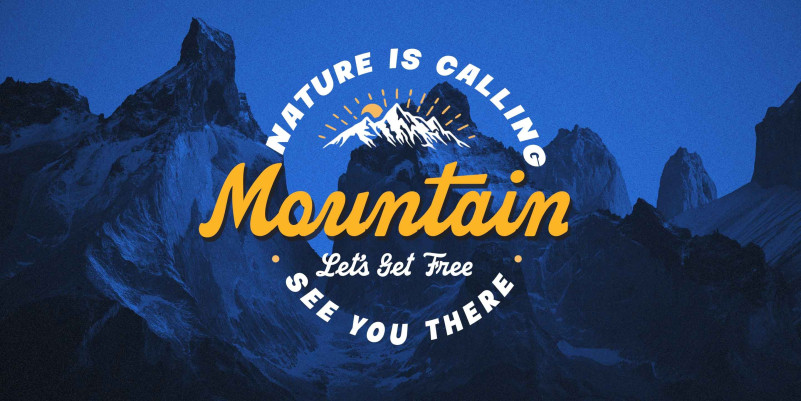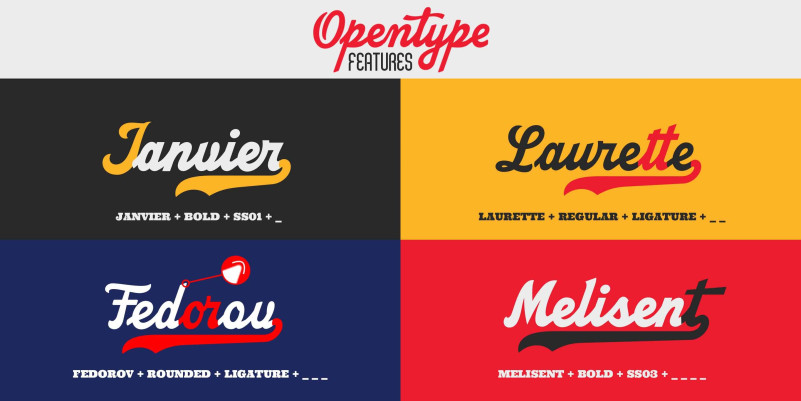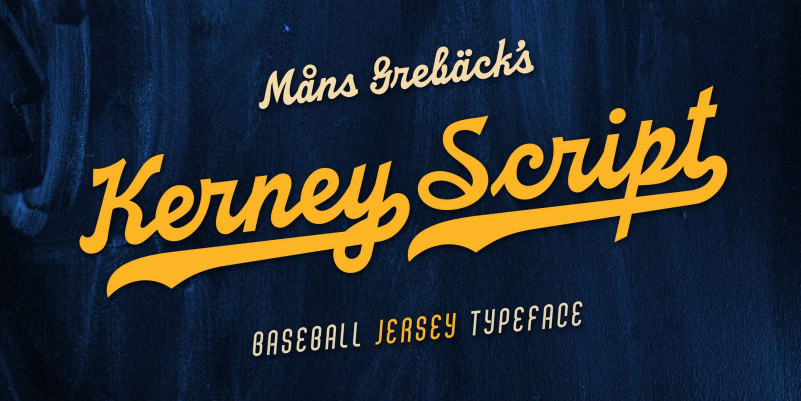
Kerney Script Font
Kerney Script Font, a sporty calligraphy, this retro lettering will be your go-to style for a fresh team logotype or a vintage headline. Drawn and created by Mans Greback, Kerney Script has a competitive style and a bold personality.
Use underscore _ to make a swash.
Example: Letter_
Use multiple underscores to make longer swashes.
Example: Football____